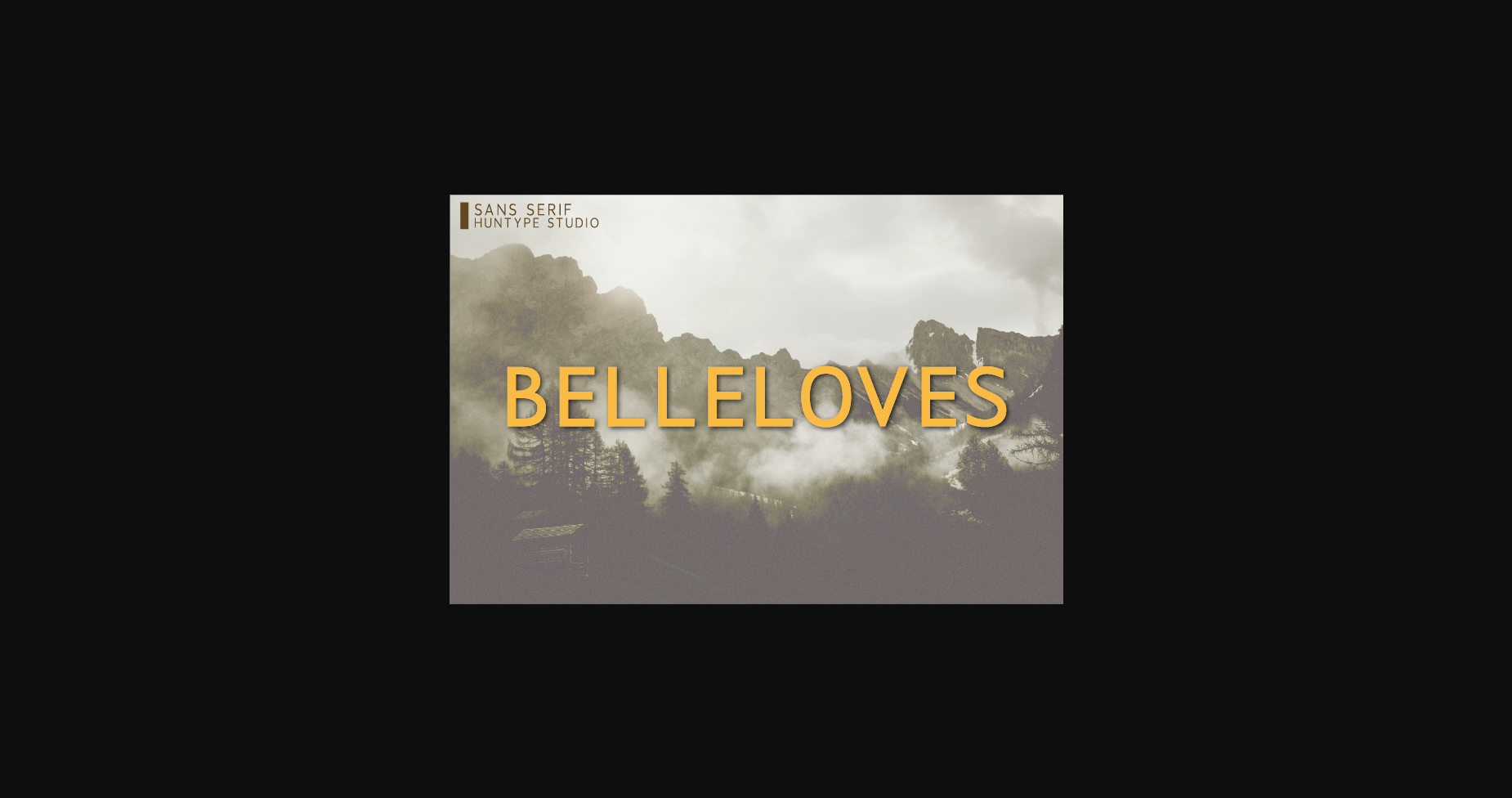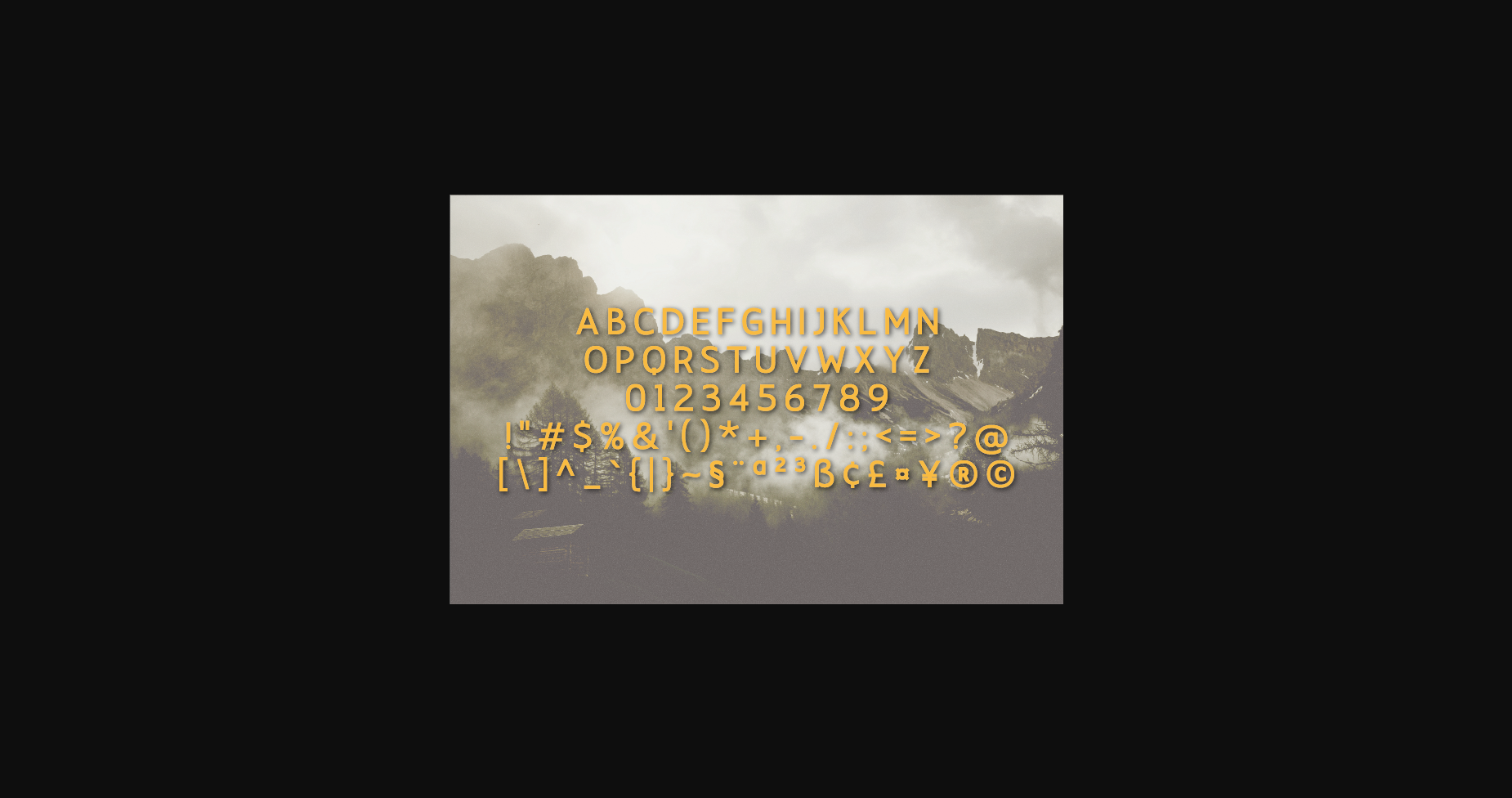
About Belleloves Font
Belleloves is a minimal and adaptable sans serif font. This font is ideal for writing web designs, business cards, or pretty much anything else that requires a unique touch.